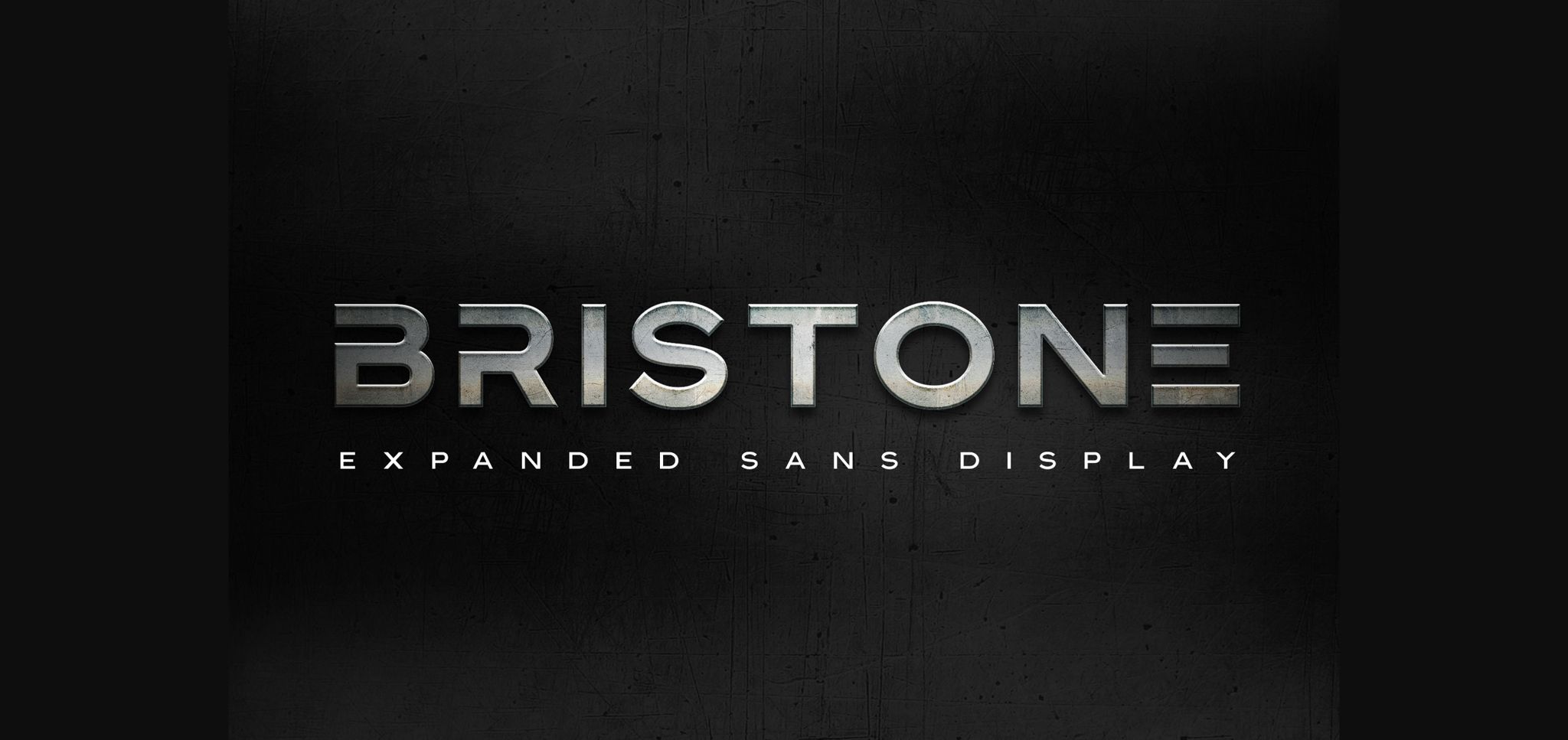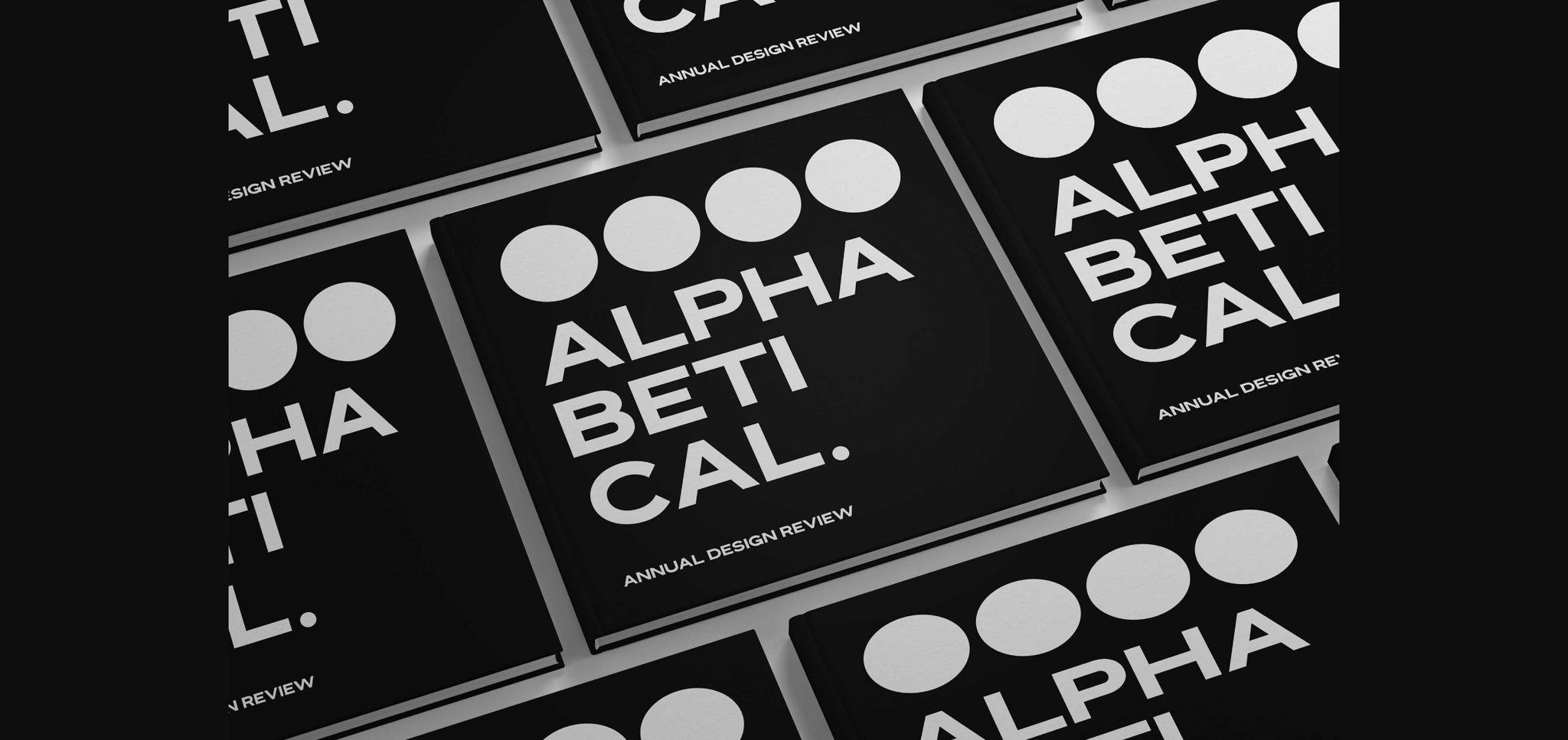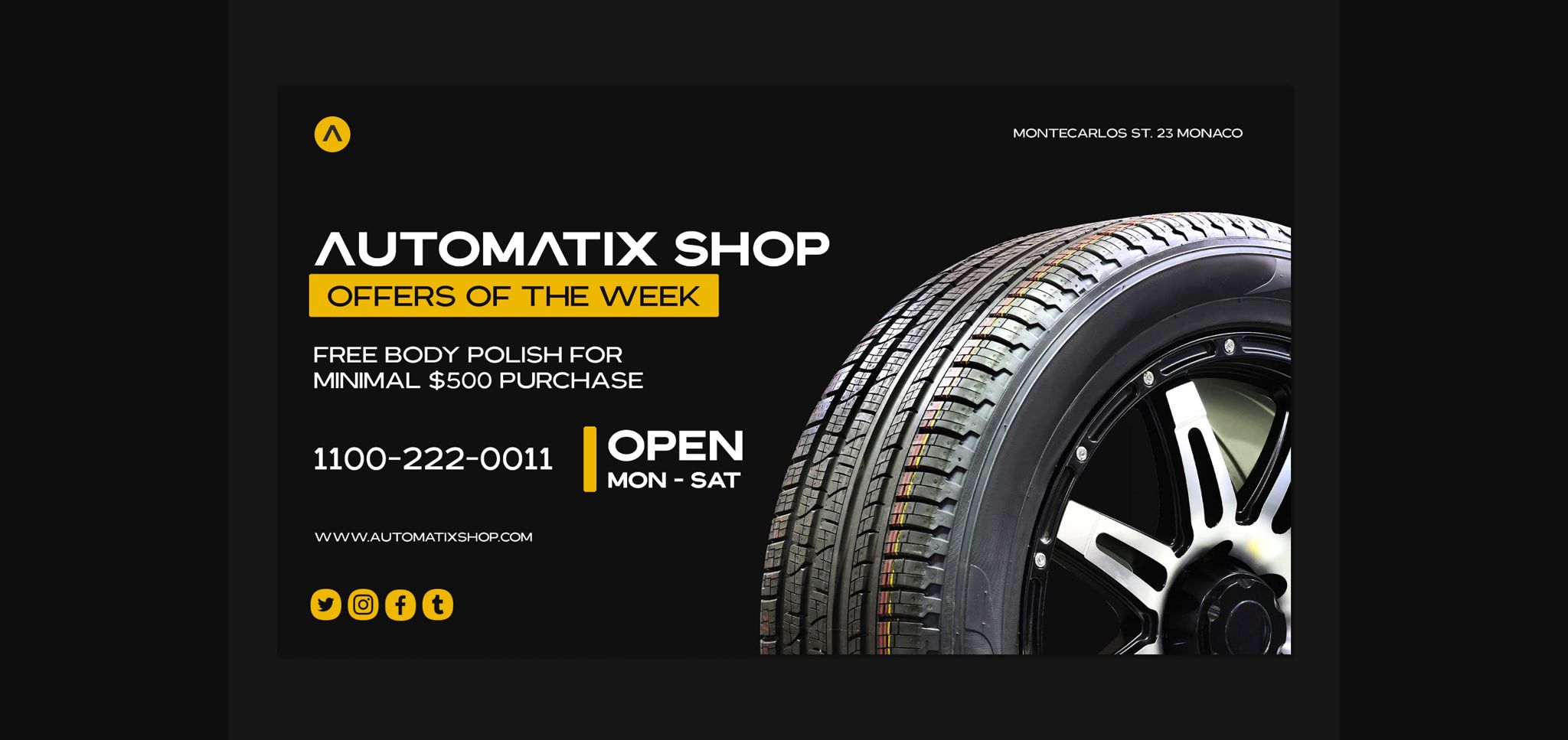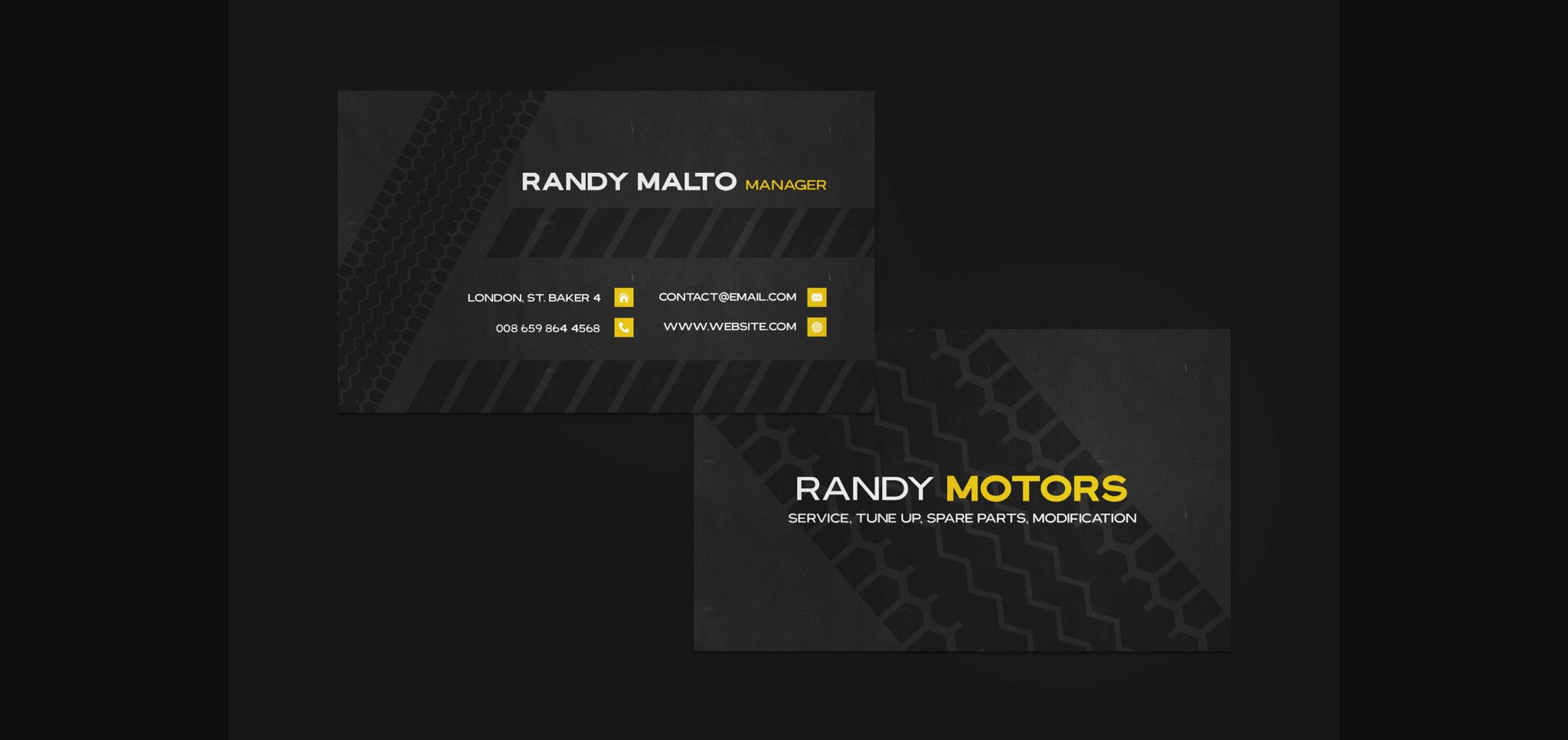
About Bristone Font
Bristone is a great sans serif font. It features a powerful style that will take your designs to the next level! It comes packed in 6 styles that you can combine to create outstanding designs!